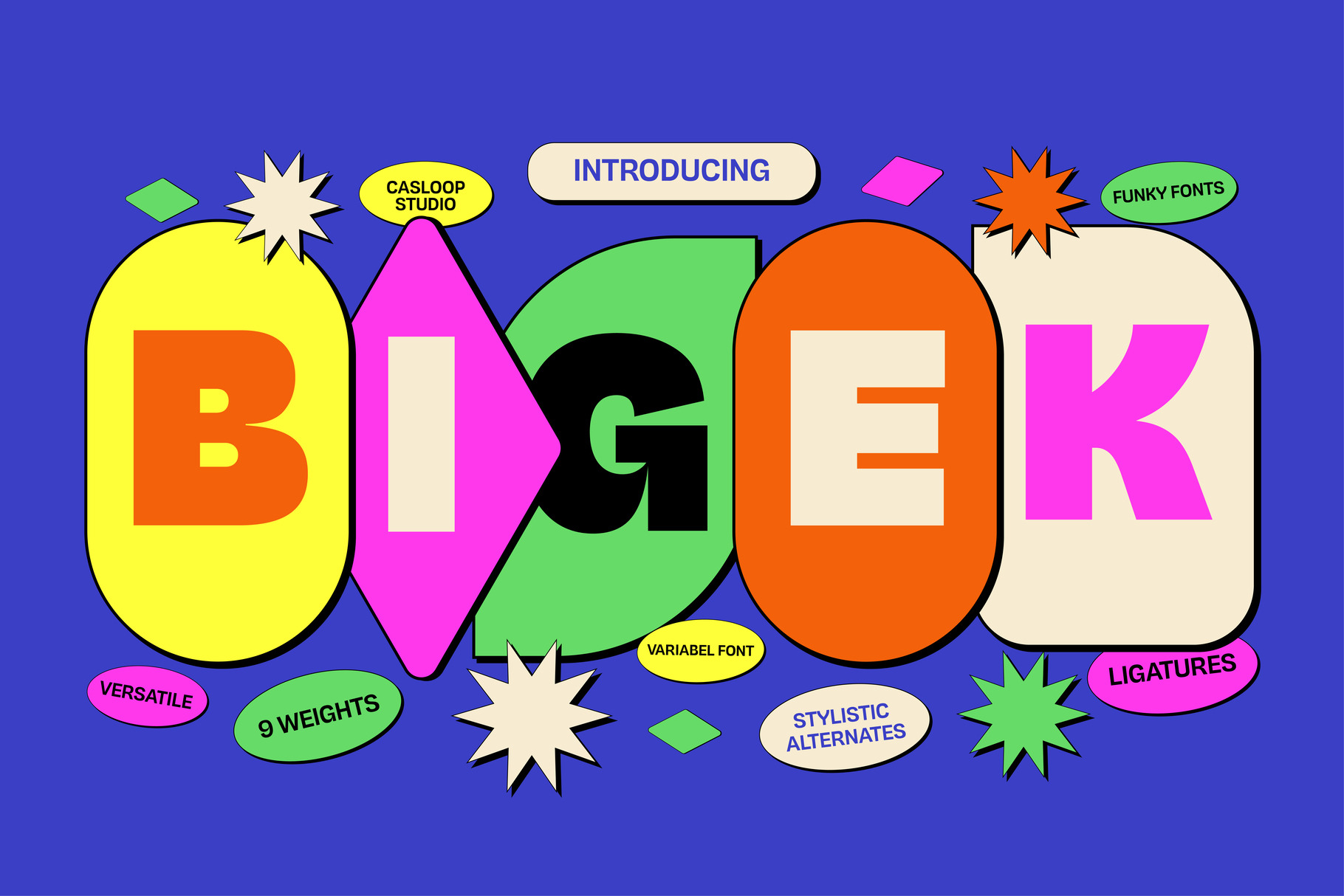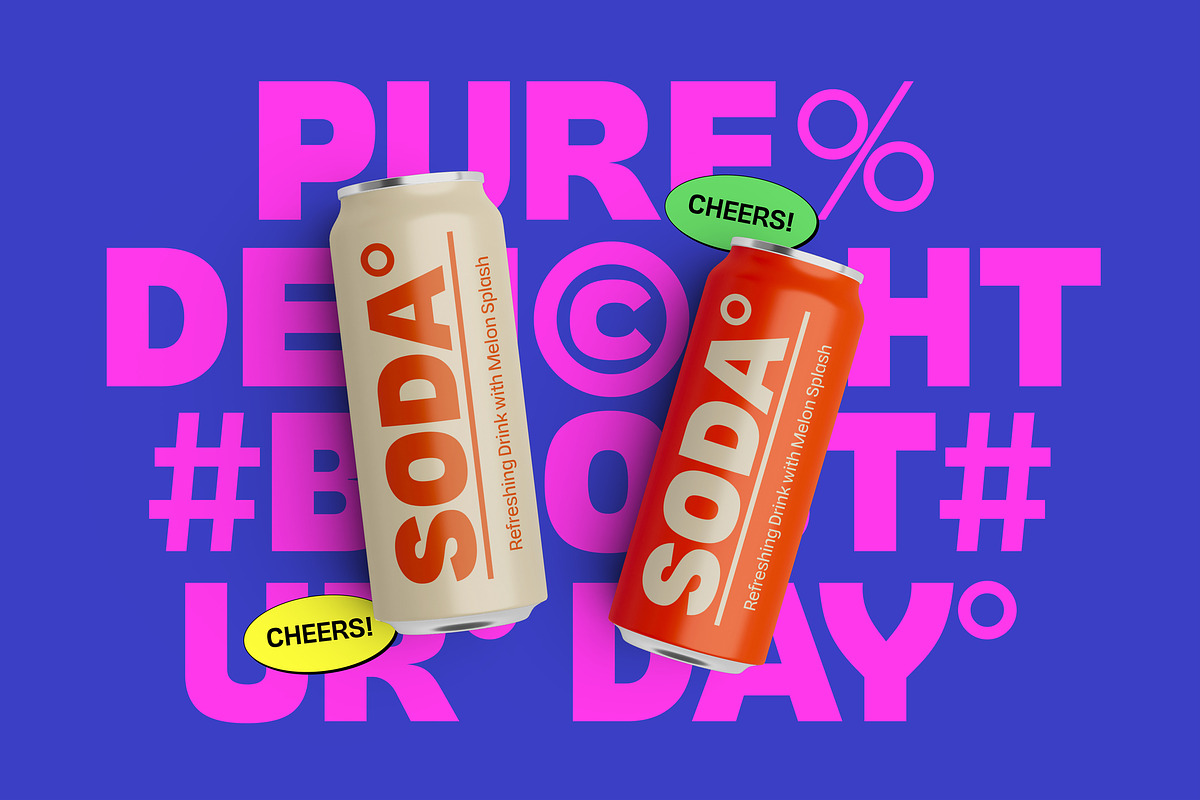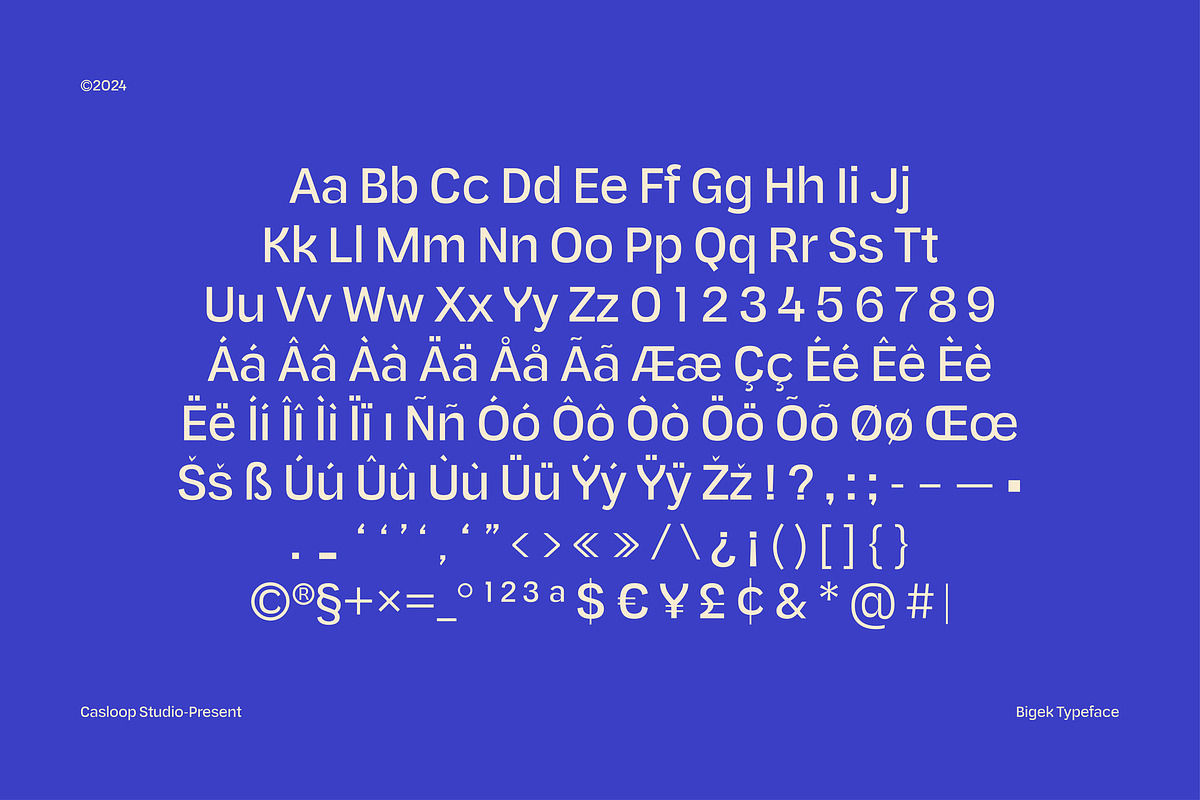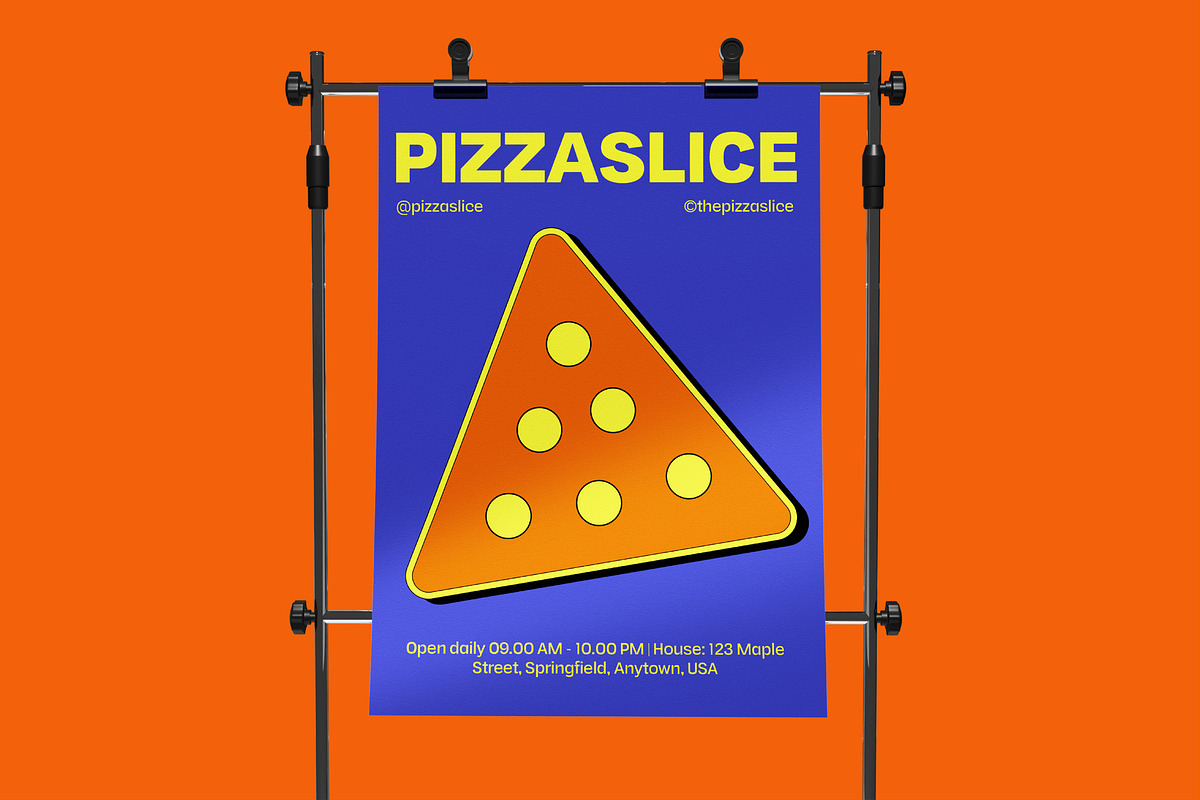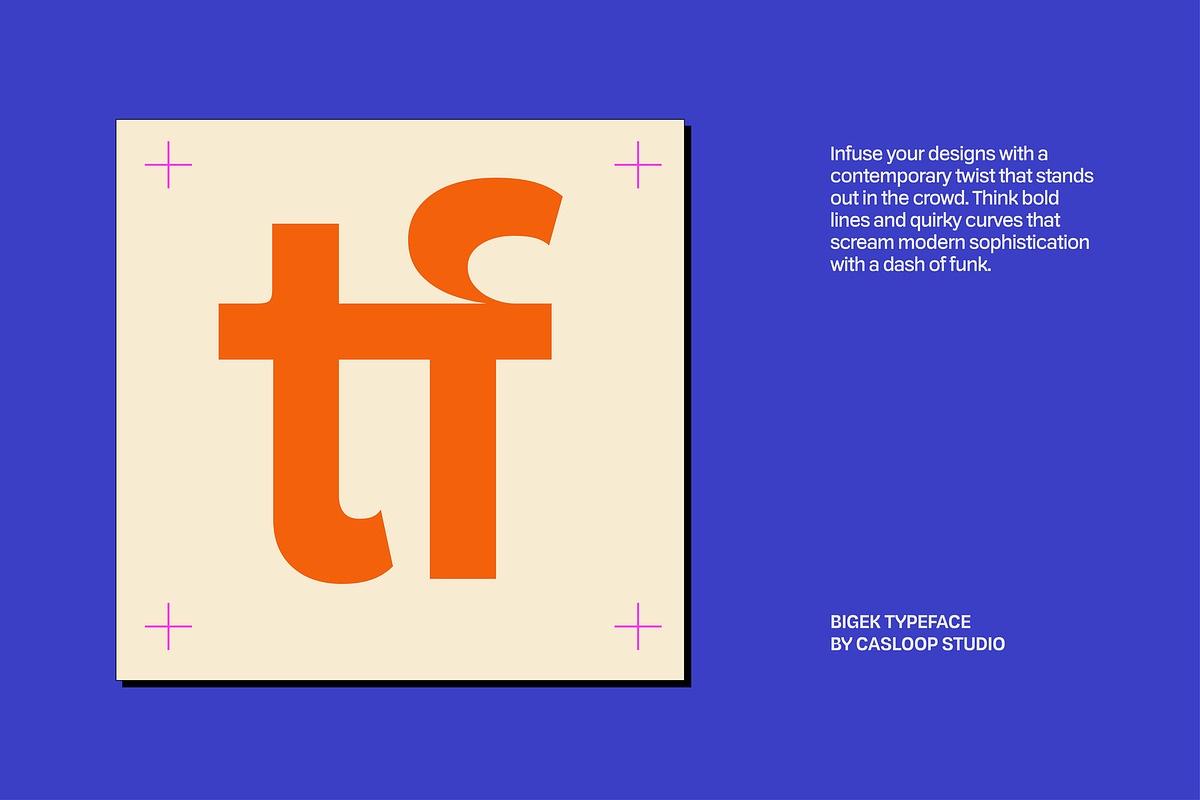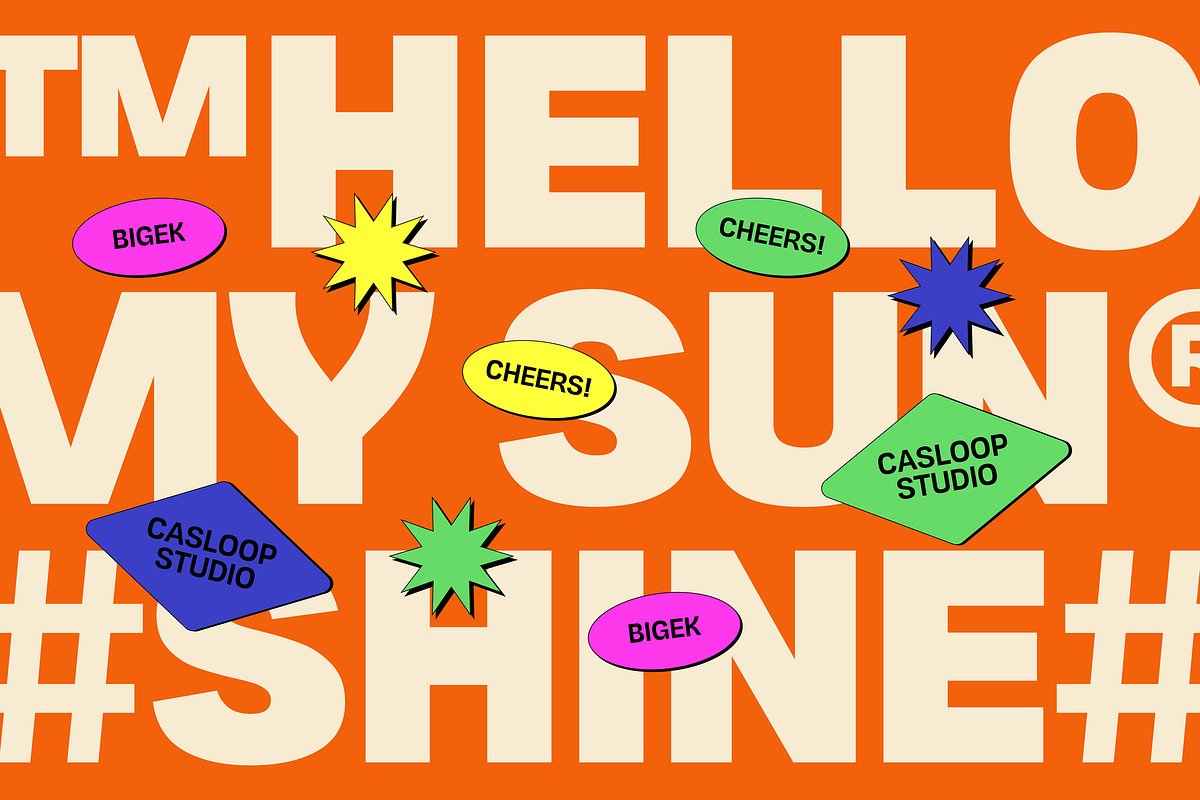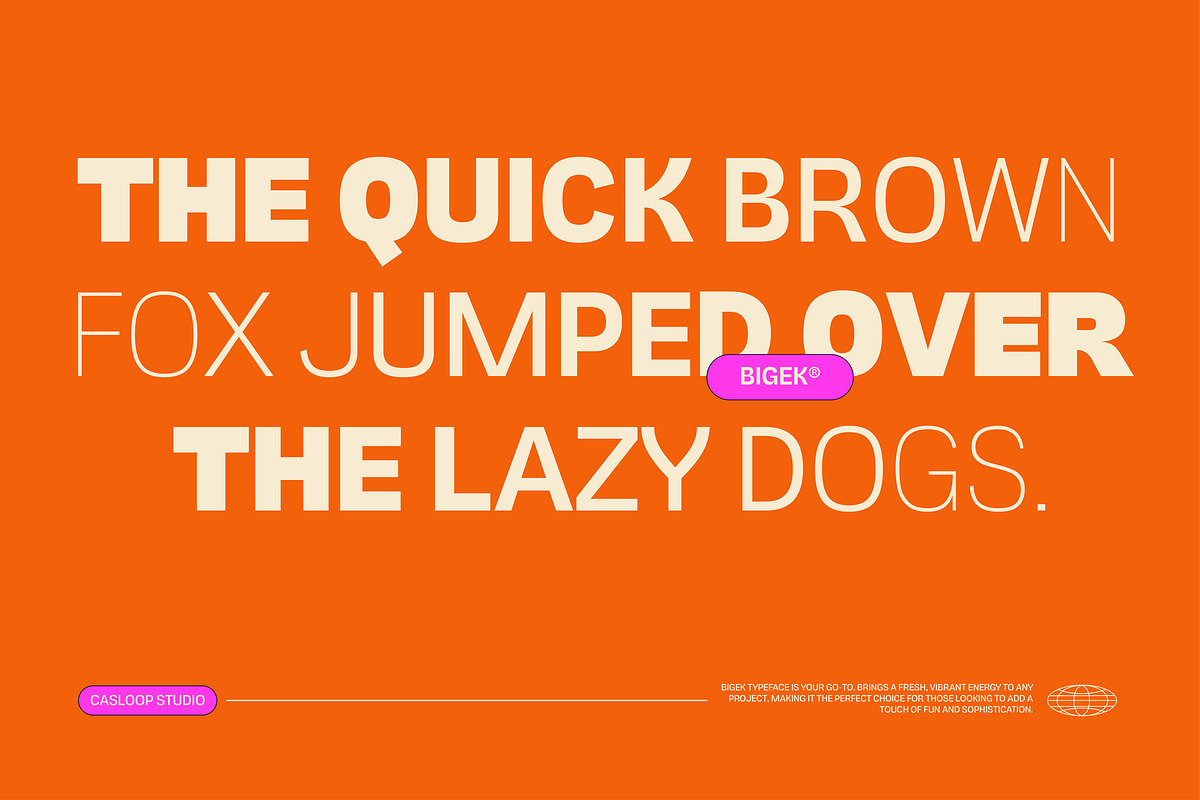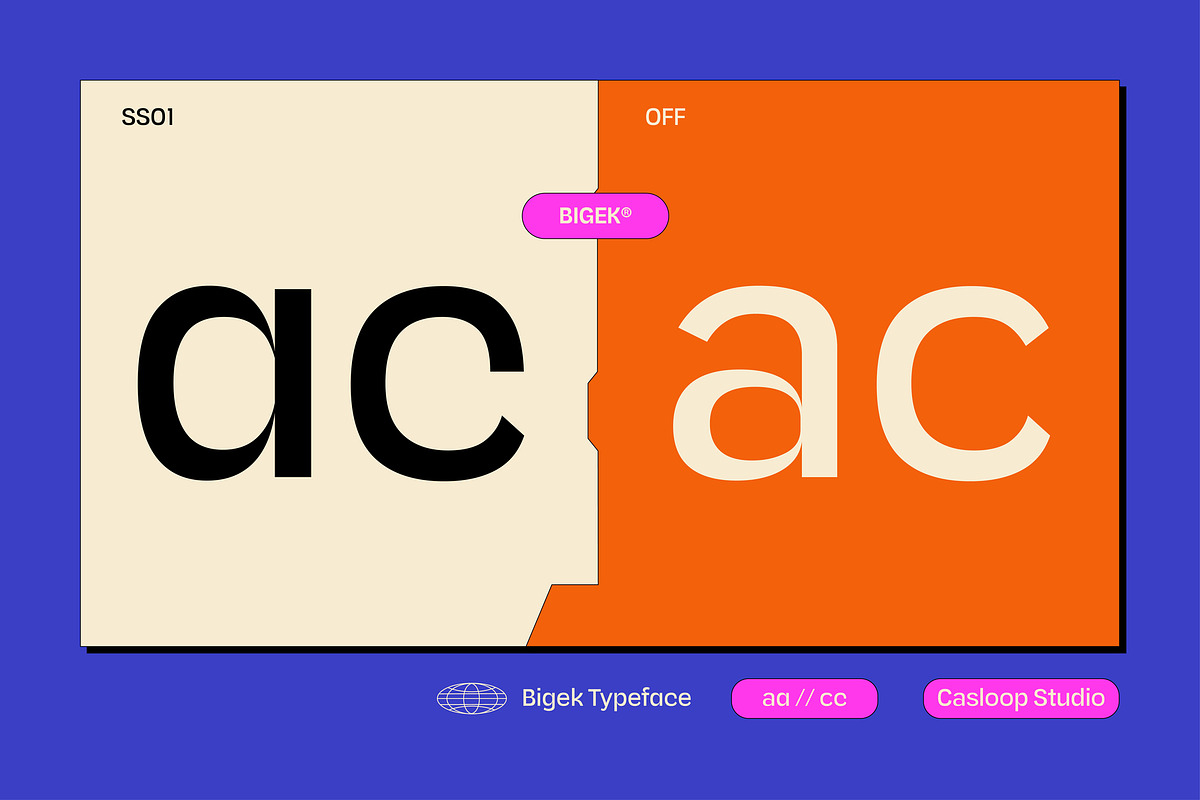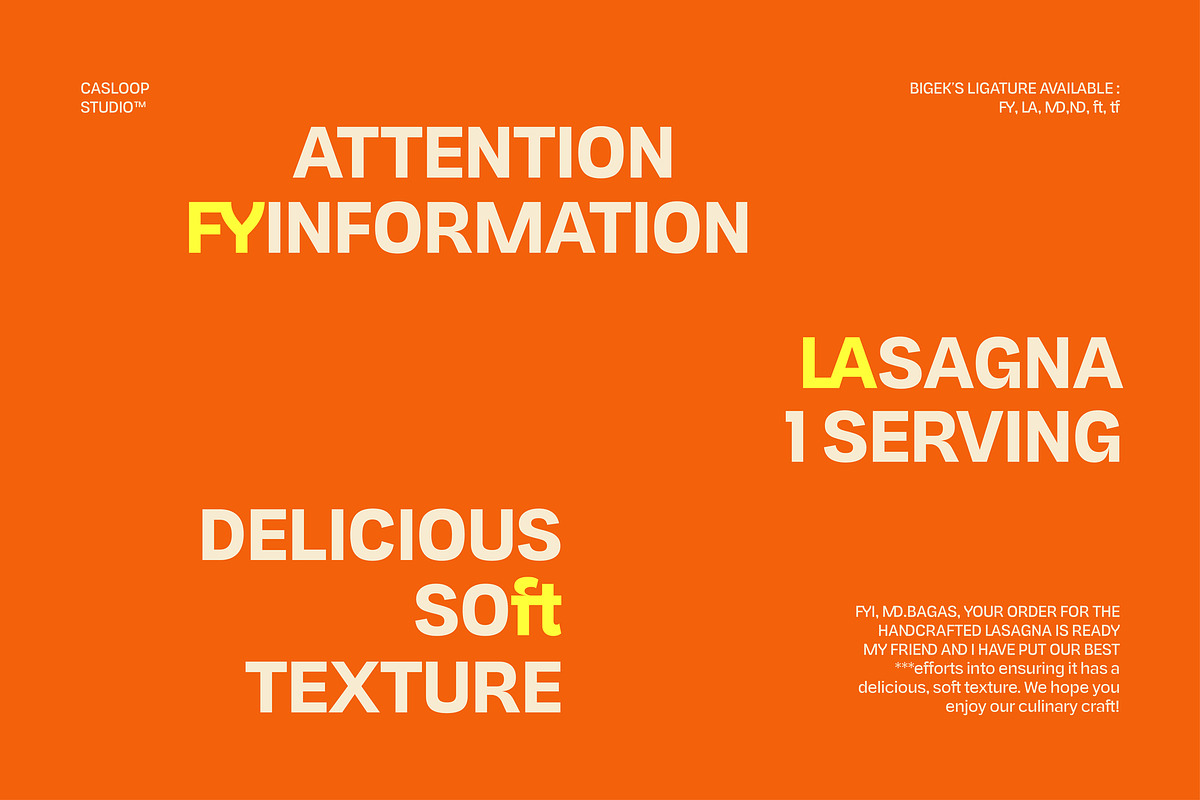
Bigek - Chunky Pop Groovy 9 Fonts
Introducing Bigek
Bigek, a modern sans serif typeface designed for maximum impact and playfulness. Its characteristic chunky and sleek forms make it perfect for creating eye-catching designs across various digital and print media. Bigek stands out with its superior versatility, ranging from thin to black weights and offering both font family and variable font options. Whether you're designing posters, pop-up displays, city-pop inspired visuals, candy packaging, or crafting vibrant logos and branding materials, Bigek ensures your creations are dynamic and expressive.
This font's contemporary yet retro vibe resonates with today's trends, appealing especially to Gen Z and youthful audiences. Its Y2K influences bring a nostalgic feel while its bold, informal style keeps designs fresh and impactful. Bigek is your go-to choice for projects that demand a unique blend of modern aesthetics and funky charm.